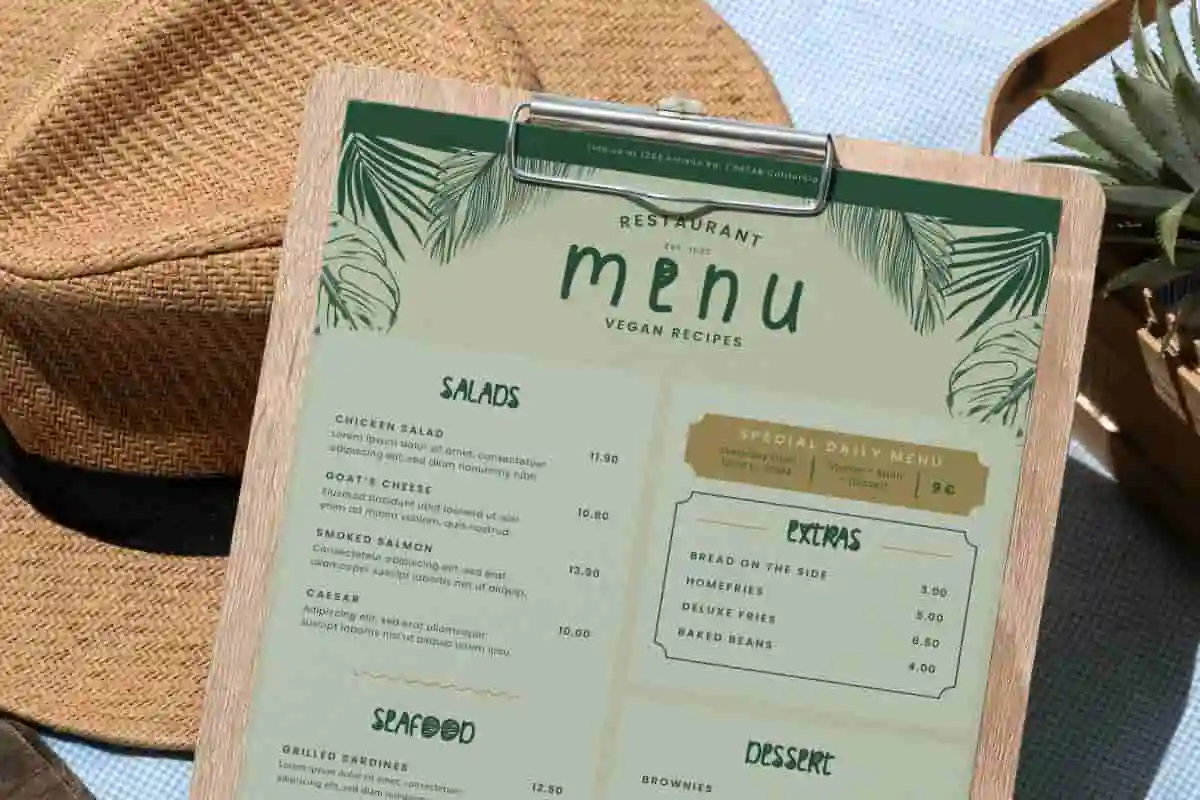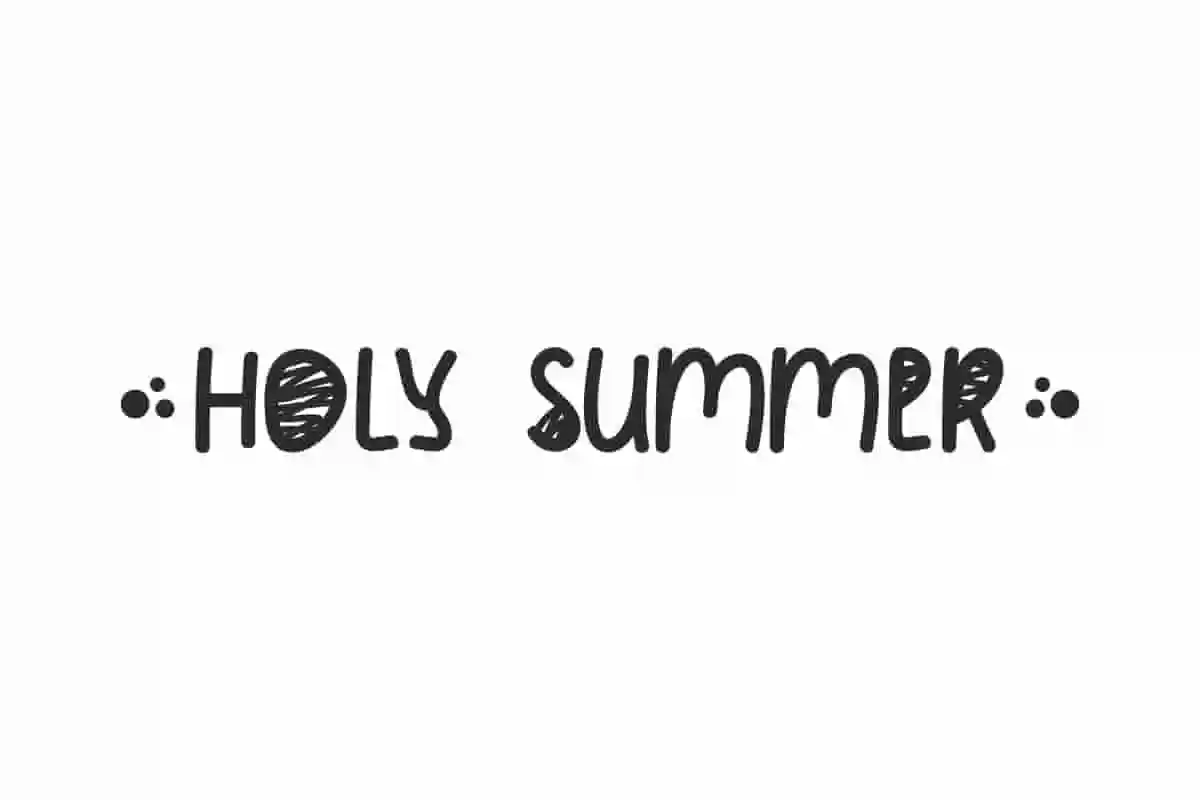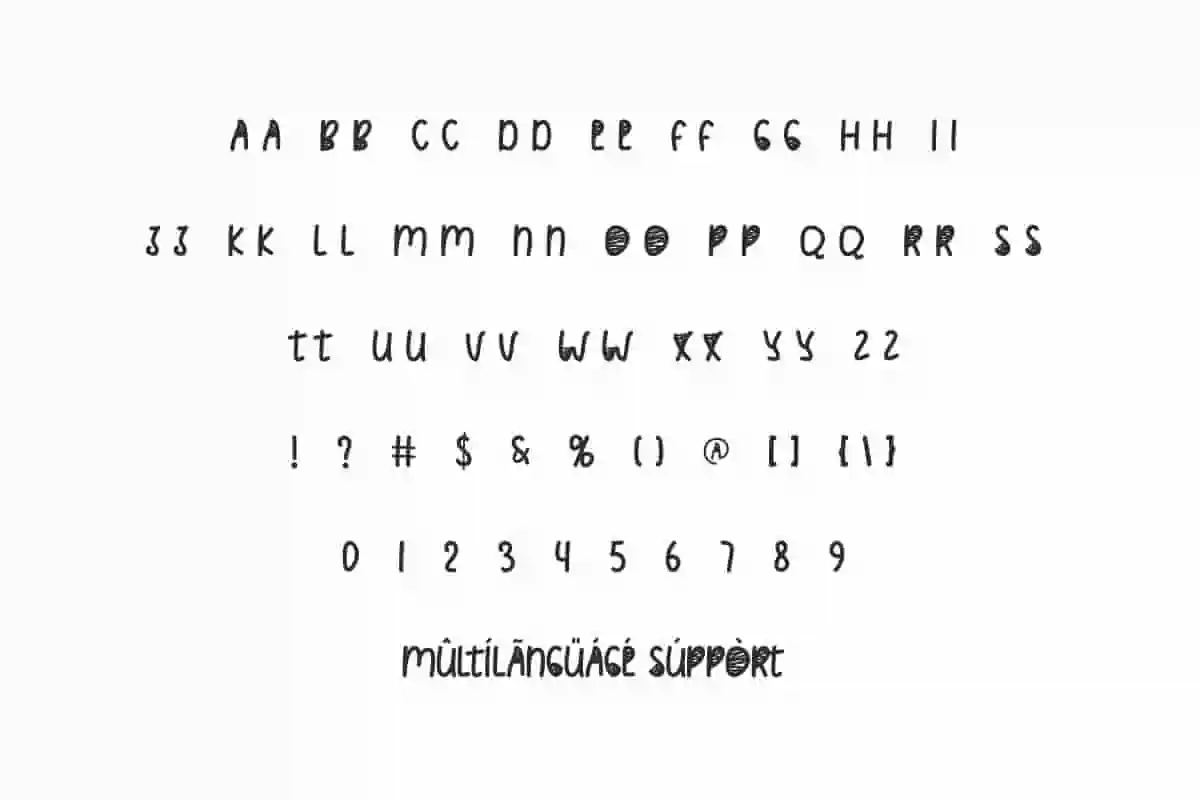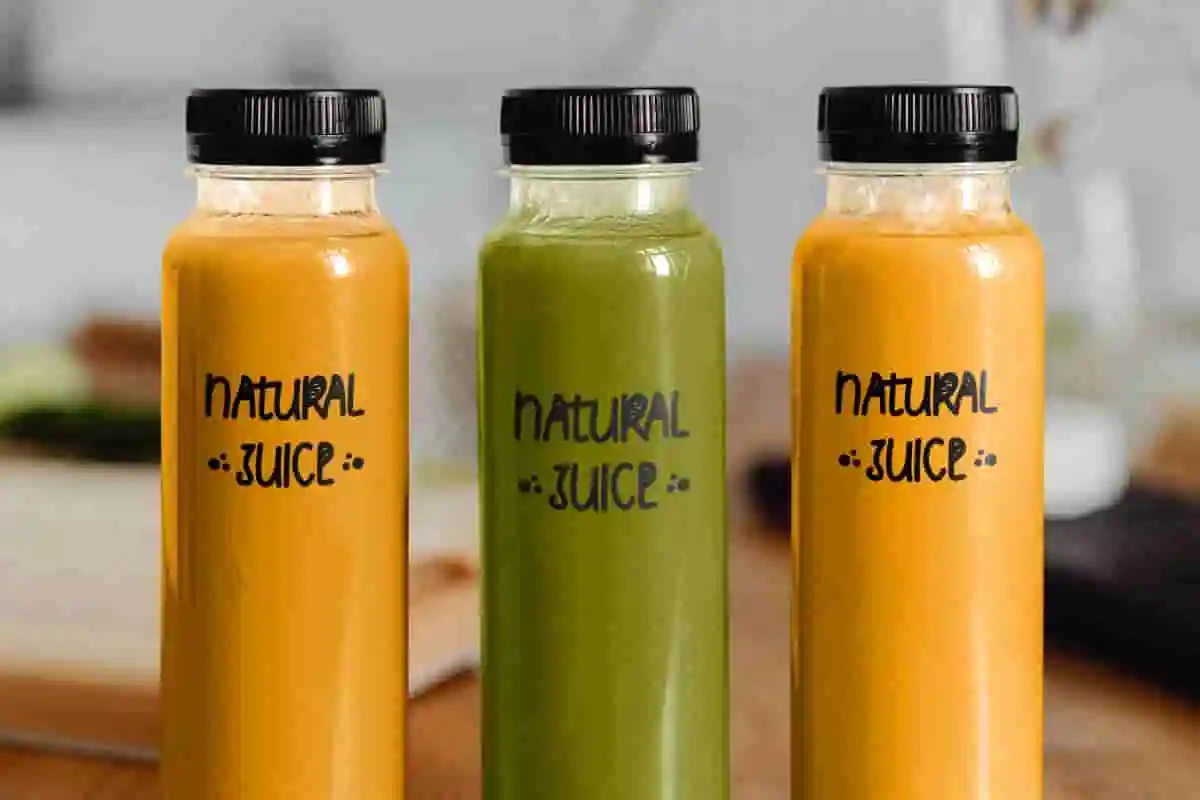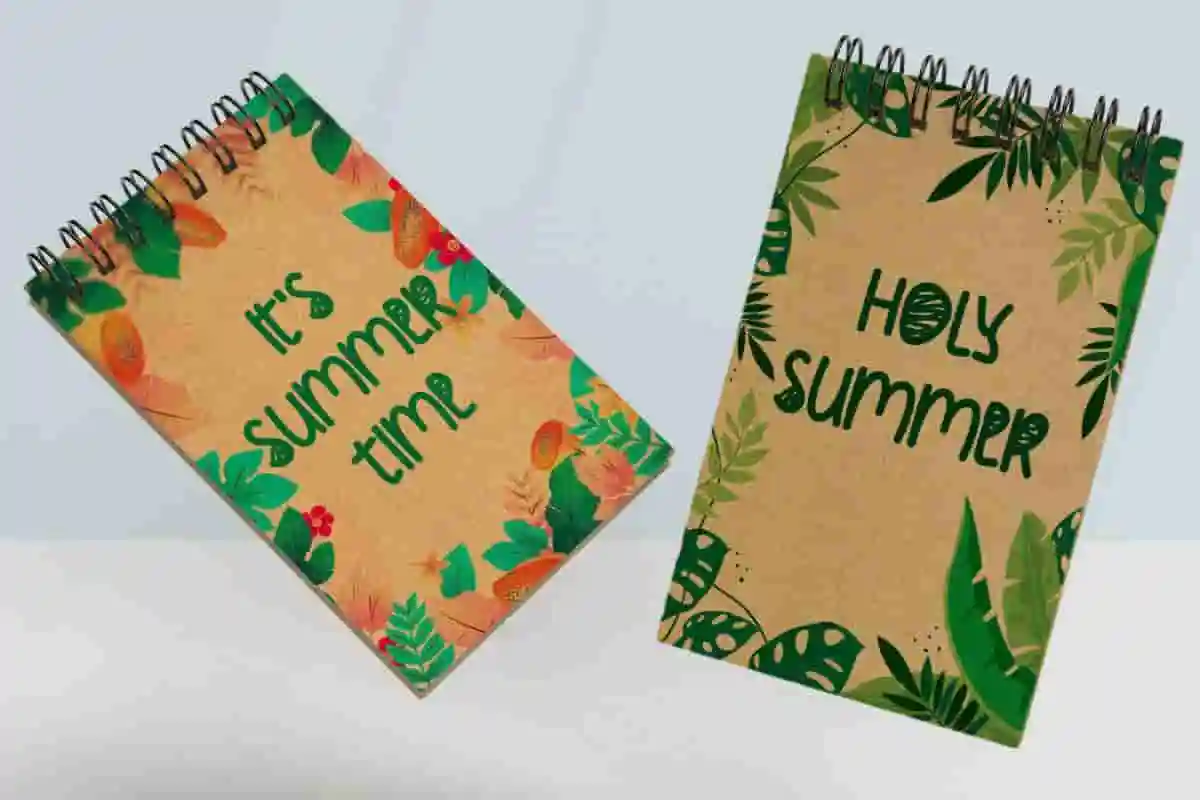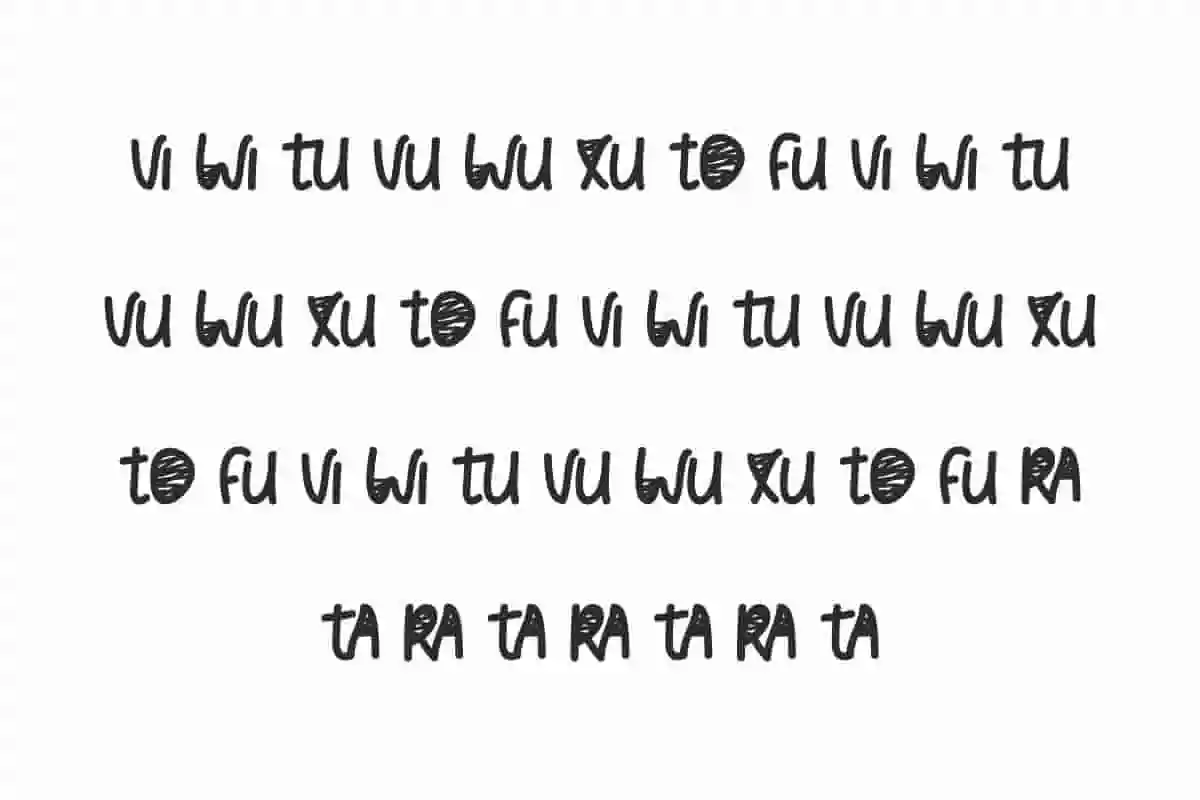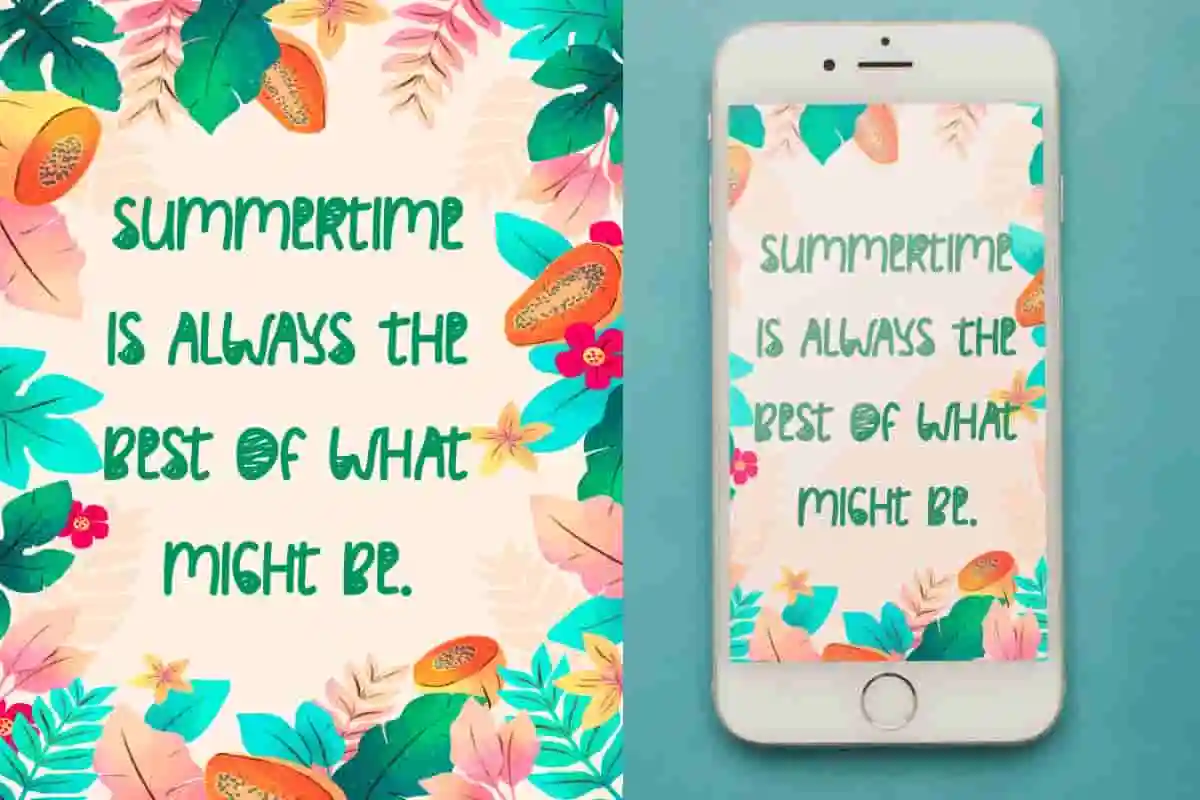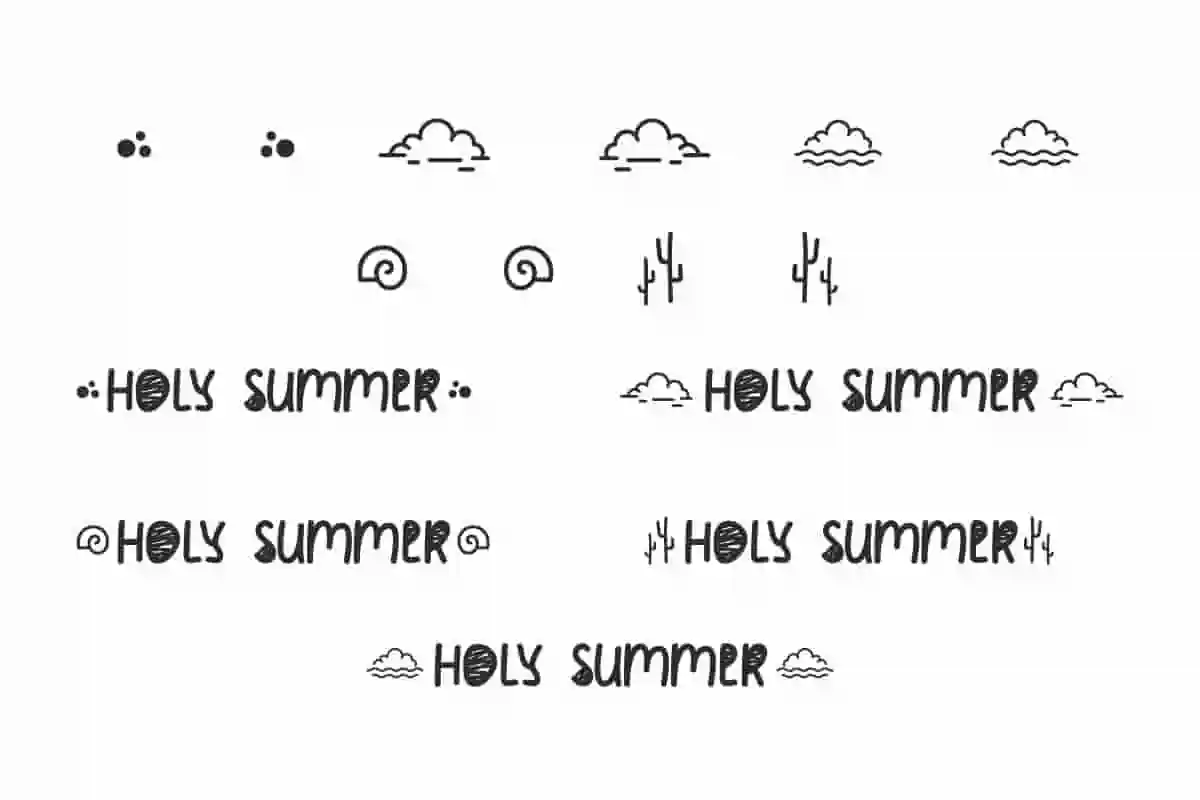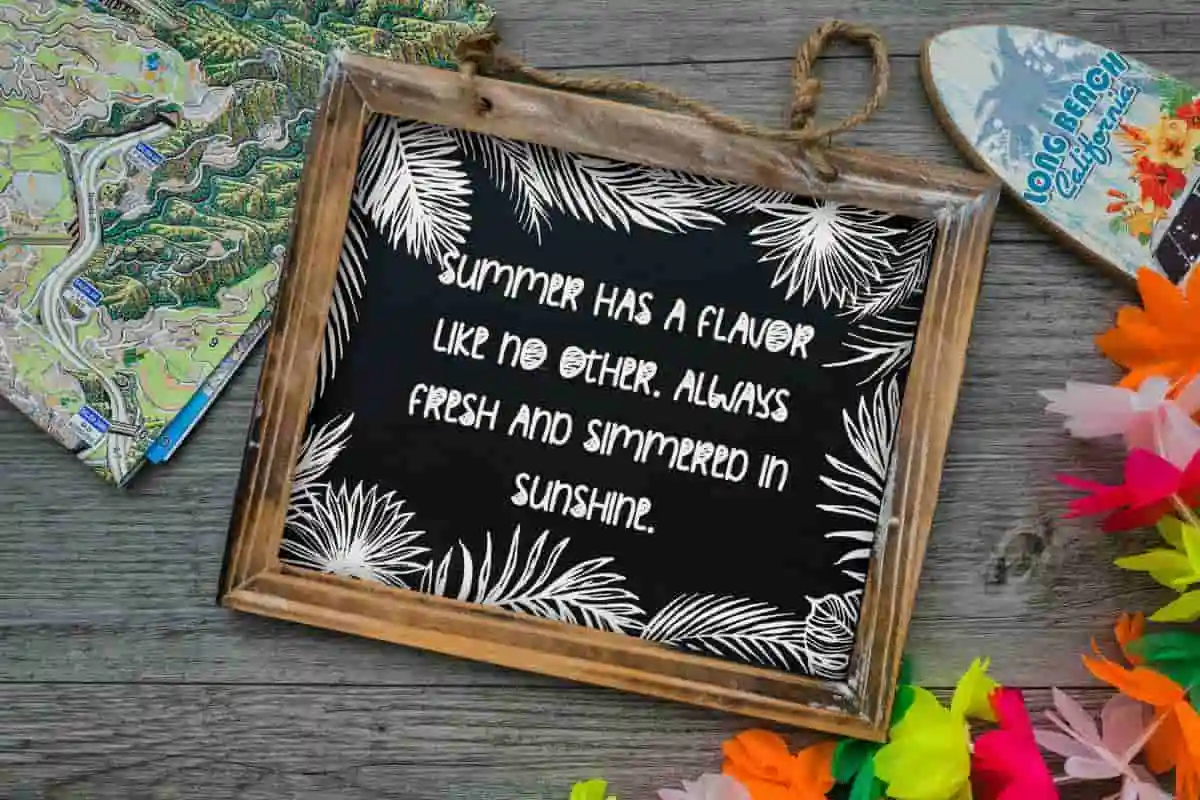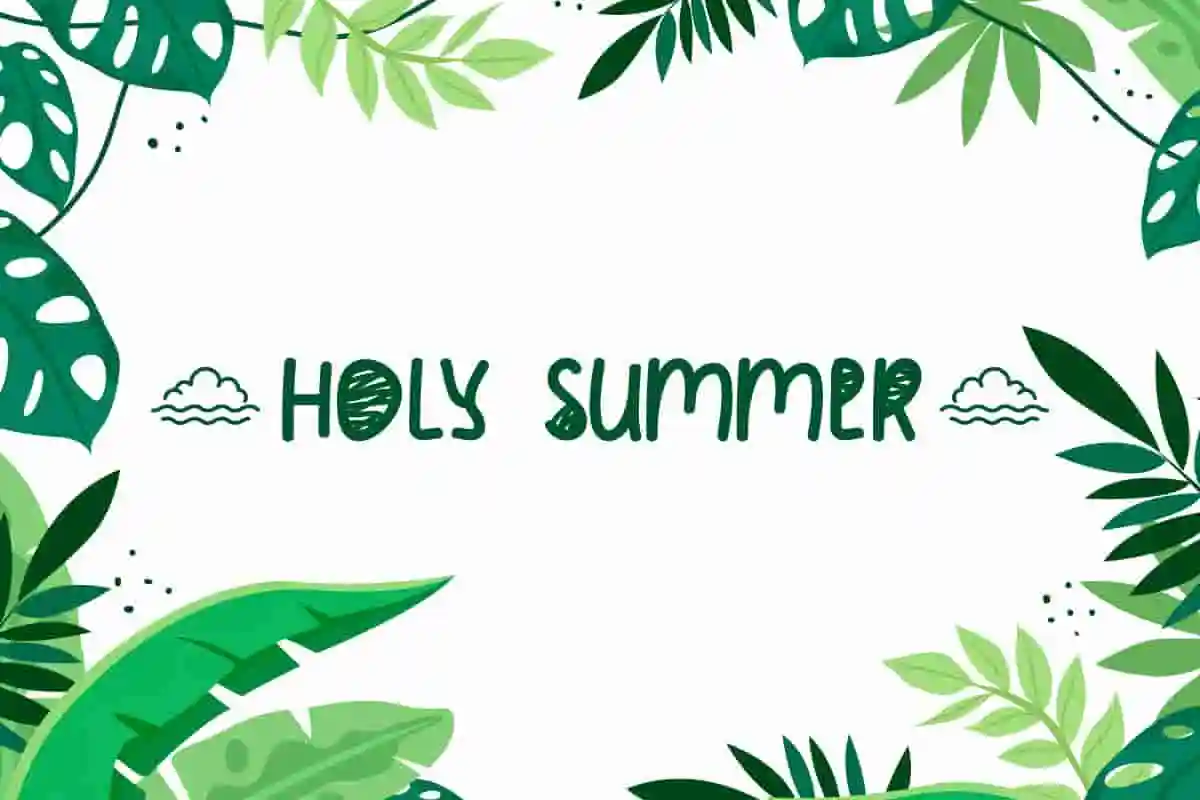
Holy Summer Font is a fresh and cute handwritten look that is now available to color a wide range of your creative projects, including brand identity, social media posts and more!
Holy Summer Font is a fresh and cute handwritten display font. It has a fun summer theme so it will perfectly freshen up your designs, such as apps, billboard, brand logo, brochure, cover, greeting card, label, logo, menu, packaging design, poster, quote, screen print, sign board, stationery, sticker, title, watermark, website, and many more!
Holy Summer Font comes with a complete set of Uppercase and Lowercase characters but in ALL CAPS, Number, Punctuation, Symbol, and Swoosh. Its unique shape is able to improve your business, such as architect, artist, author, clothing brand, fresh beverage brands, film, game, graphic design, handicraft, lodging, movie, printing, publishing, restaurant, school, tourist attraction, toys, etc.